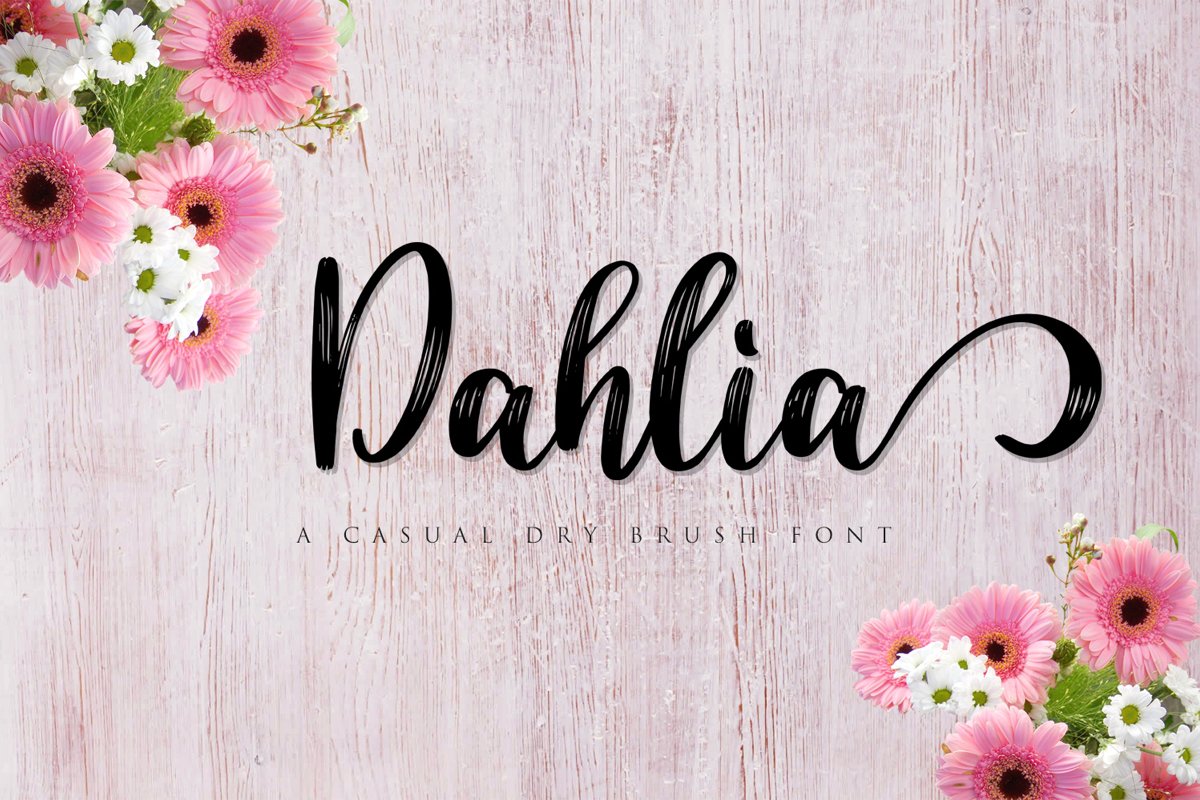
Dahlia is a Script Dry Brush font that come with over 300 Glyph and equipped with OpenType feature to make custom feel for your design. This font will give your designs that fresh, the fonts are great for product logo,wedding card logo, Banner, Graphic design, clothing brand logo, and much more.
FEATURED:
• Uppercase,
• Numeral
• Alternate Glyphs
• Punctuation
• International Glyphs